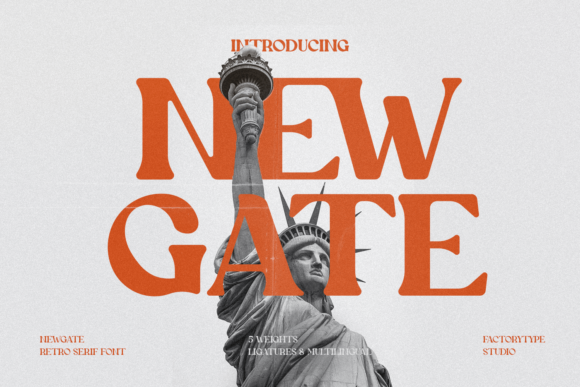
Welcome to the extraordinary realm of typography, where NEWGATE reigns supreme - a serif masterpiece that masterfully blends the allure of the past with the vibrancy of the present. Its bold, sweeping curves evoke the groovy spirit of the 70s, while the delicate serifs anchor it in timeless elegance.
NEWGATE is not just a font; it's a journey through time, a fusion of retro aesthetics and contemporary sophistication. Imagine crafting logos that ooze vintage charm yet radiate a modern edge. Its separate lower and uppercase letters, along with a comprehensive range of numbers, punctuation, and multilingual letters, make NEWGATE a versatile companion for all your creative endeavors.
Unleash the power of ligatures and let your imagination soar. With NEWGATE, every word becomes a captivating story, every design a masterpiece. Its PUA encoding grants you effortless access to a world of glyphs and swashes, empowering you to add intricate details and a touch of whimsy to your projects.
Embrace the allure of NEWGATE, a font that embodies the essence of nostalgia and innovation. It's the missing piece to your creative puzzle, the spark that ignites your designs. Join the legion of satisfied users who have discovered the magic of NEWGATE and transformed their creative visions into stunning realities.